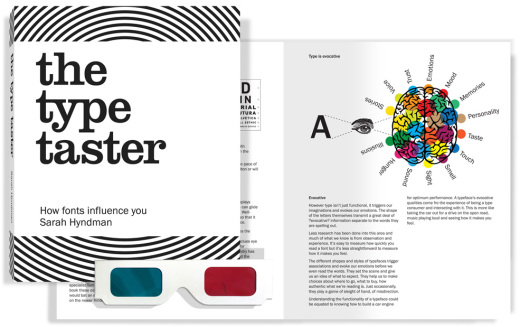
Discover the emotional life of fonts
Every typeface has a personality that influences our interpretation of the words we read by evoking our emotions and setting the scene.
Typography plays a big role in our every day lives. Your font choice for any project can make a huge difference in terms of how it will affect the user or consumer and that's exactly what graphic designer and educator Sarah Hyndman specialises in. Recently giving a talk at TEDxBedford, she shares with us a story of type and invites us to consider our emotional response to the printed word.
"I have always enjoyed words and letterforms from seeing them on sweet packaging as a child, and my Grandad had been a commercial artist who used to talk to me about design when I was little," Hyndman explains.
"My passion was really kick-started when I taught Experimental Typography at LCC, which explored how expressive type and letterforms could be. This is where I learned that there was much more to typography than history and 'rules'."
In her talk, Hyndman explains that conscious awareness of the emotional life of fonts can be entertaining and ultimately give us more control over the decisions we make. She recently completed the first edition of 'Type Taster: How Fonts Influence You', which is a book that corresponds beautifully to the themes in her talk, combining font research, memory triggers and more.
The book also comes in a range of five limited edition covers including Baskerville, Clarendon, Didot, Gill Sans, Helvetica – you'll find the corresponding personality analysis of your cover choice inside the book.
"I've been chatting to non designers since setting up Type Tasting two years ago, and this has been really helpful because they ask really fundamental questions which are challenging to answer and force me to get away from using industry jargon," she continues.